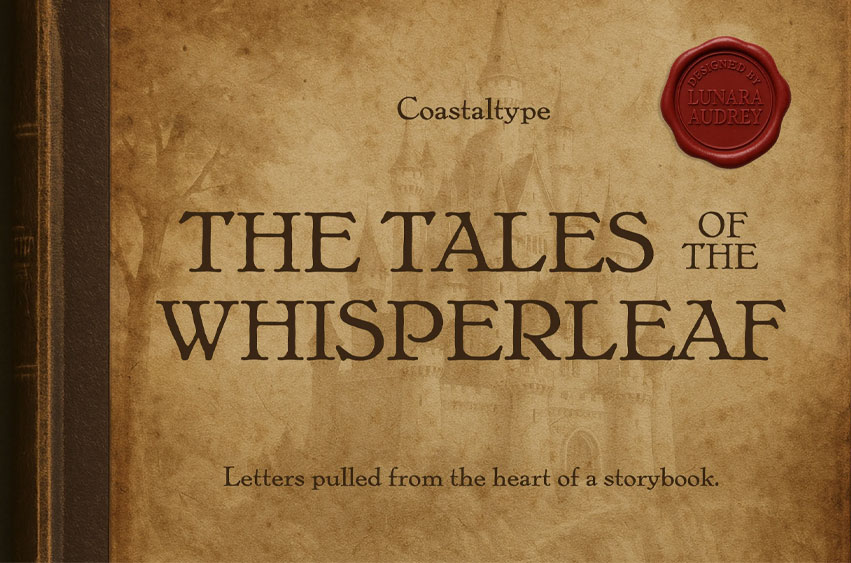
Whisperleaf Font
Whisperleaf Font is a whimsical serif font inspired by classic storybooks and revived from a rare vintage type specimen. With soft curves, delicate strokes, and fairy tale elegance, this font captures the magic of old-world lettering—perfect for children’s books, fantasy covers, and enchanting branding.
Designed for storytellers, illustrators, and dreamers, Whisperleaf blends nostalgic charm with modern readability. Each character feels hand-crafted, bringing warmth and wonder to titles, headers, logos, and editorial layouts.
Ideal for:
• Storybook titles
• Fantasy book covers
• Children’s literature
• Magical branding & packaging
• Vintage-inspired designs